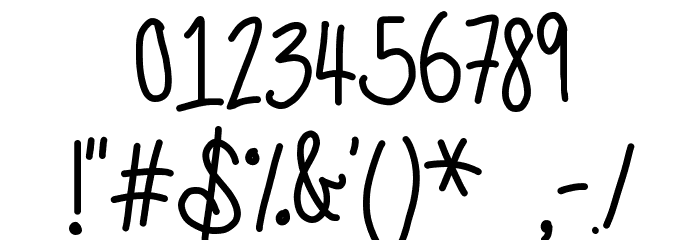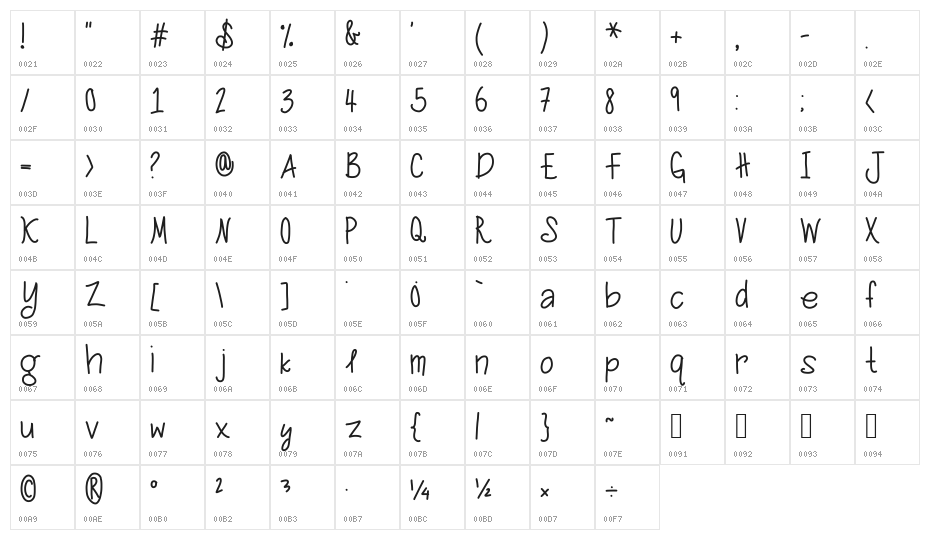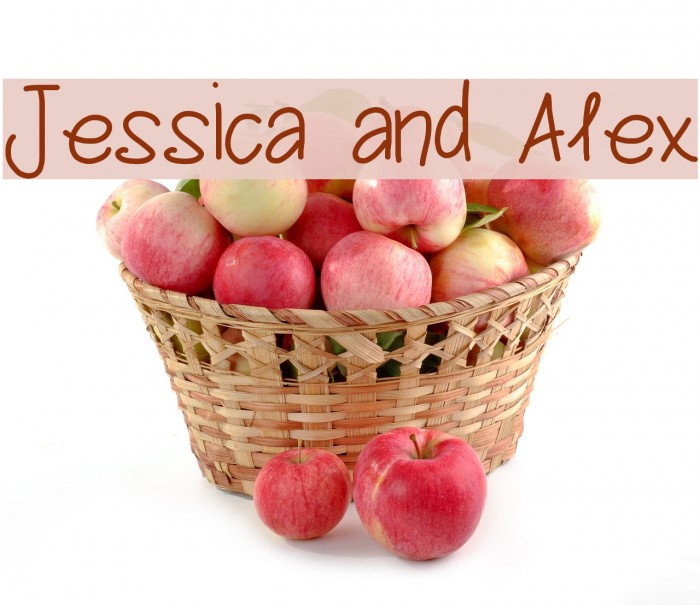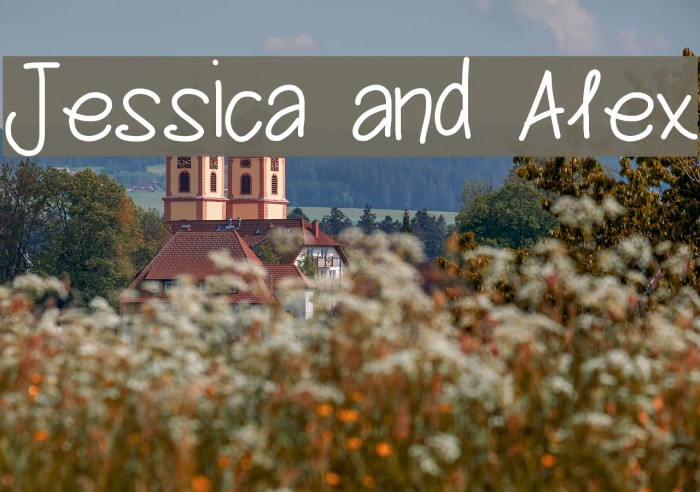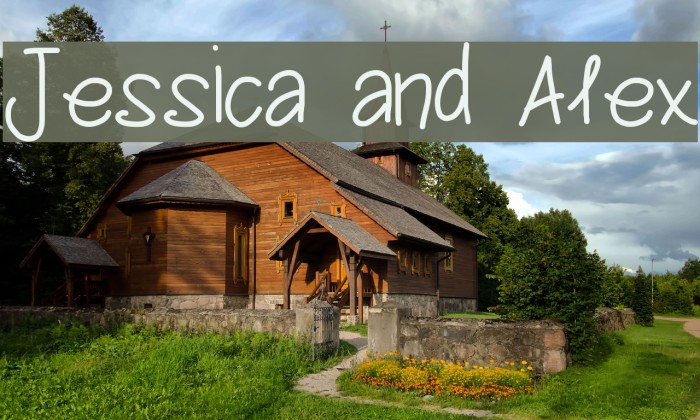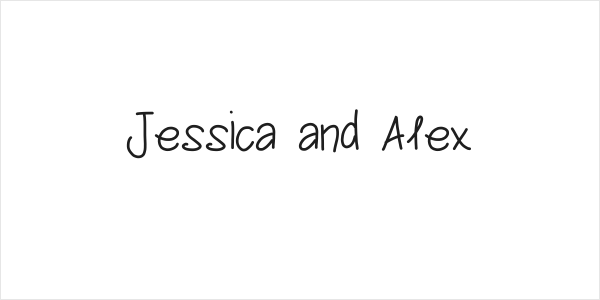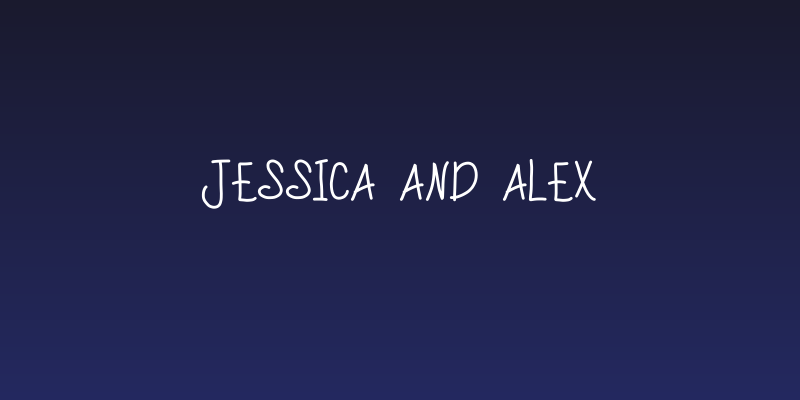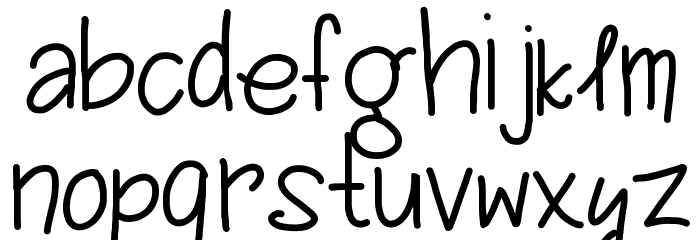
Jessica and Alex Font
Jessica and Alex Description
This playful and casual font features a handwritten style with a slightly irregular baseline, giving it a friendly and approachable appearance. The characters are rounded and somewhat whimsical, with varying stroke thickness that adds to its informal charm. The uppercase letters are bold and prominent, while the lowercase letters maintain a consistent flow, enhancing readability. Numbers and special characters are designed to match the overall style, making this font versatile for various creative projects. Its unique personality makes it suitable for designs that aim to convey warmth and creativity.
| Proposed Projects | Ideal for greeting cards, children's books, playful branding, and social media graphics. |